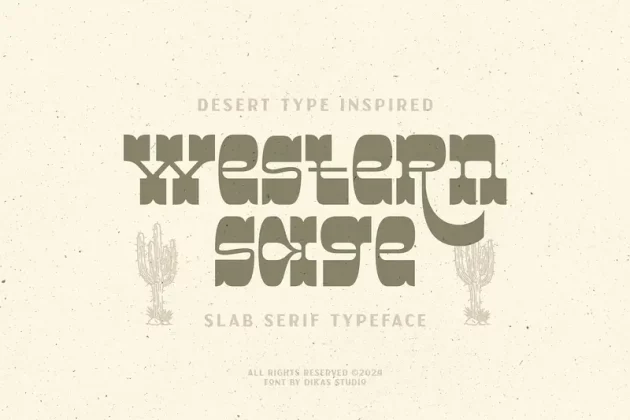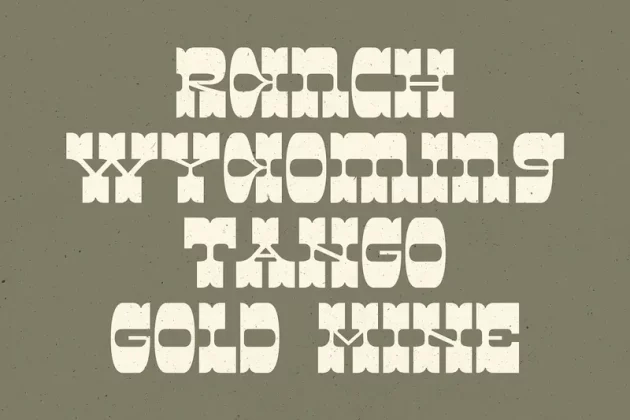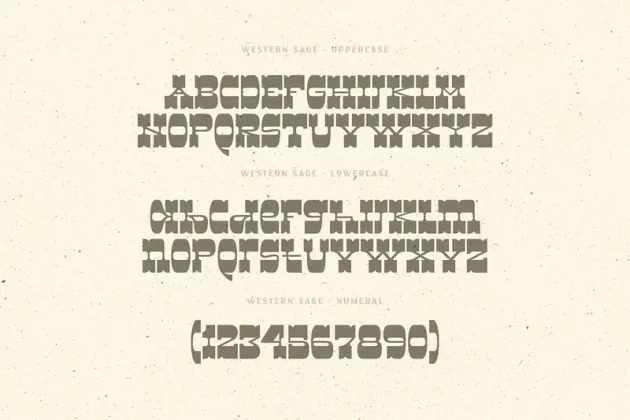
About Western Sage Font
Western Sage – “Bold, Refined, and Timelessly Western”
Western Sage is a bold slab serif font with striking high-contrast details, perfect for capturing the spirit of the Wild West. Whether you’re designing for cowboy themes, desert-inspired visuals, or vintage aesthetics, this font adds character and timeless charm to your work.